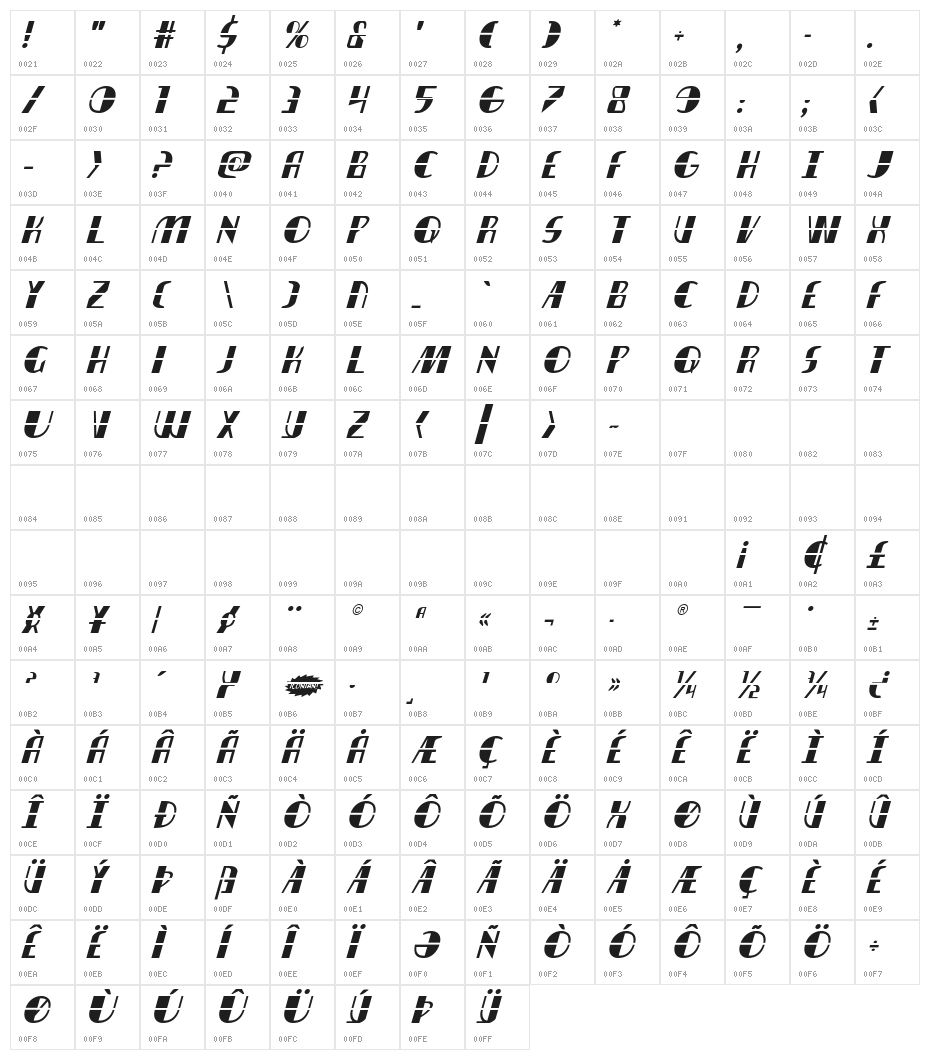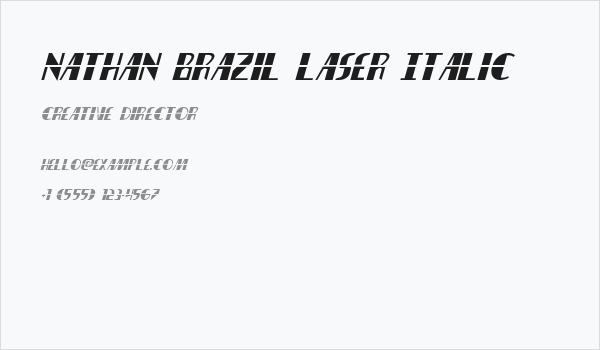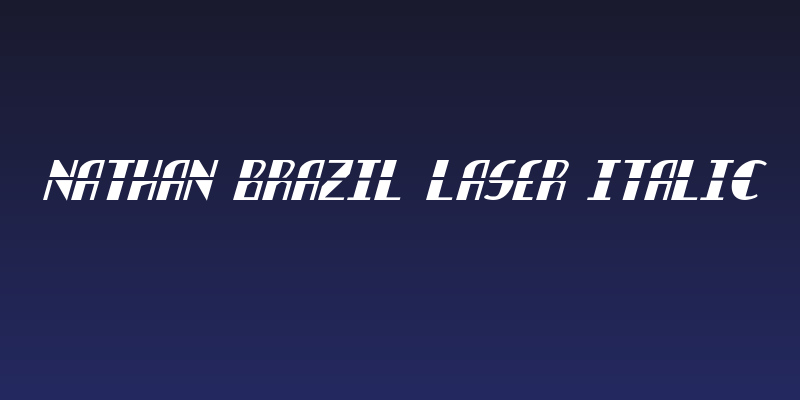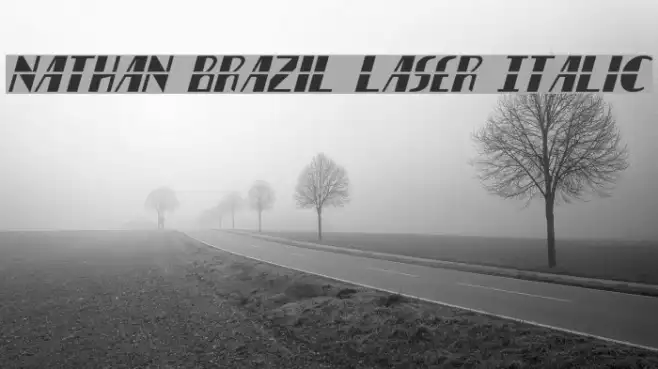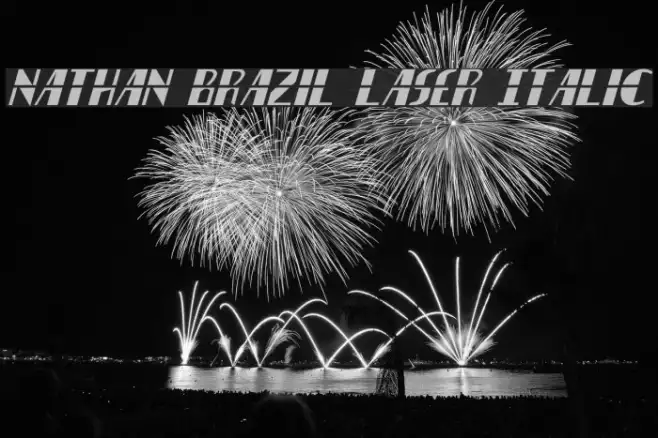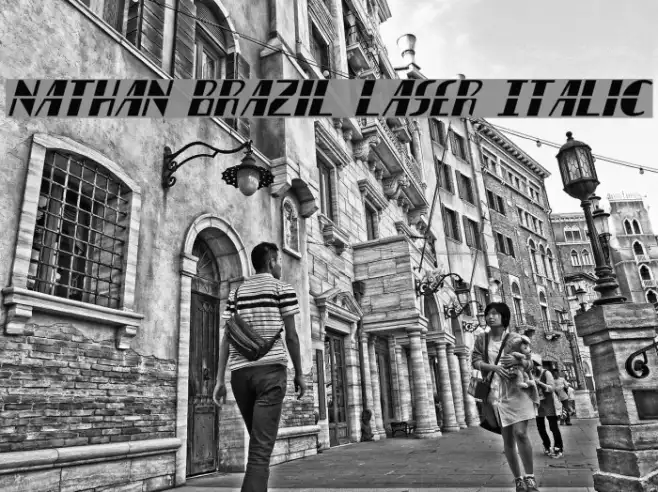
Nathan Brazil Laser Italic Font
Nathan Brazil Laser Italic Description
This font features a dynamic and futuristic design with a distinct italic slant, giving it a sense of motion and energy. The characters are bold and angular, with sharp edges and a unique cut-out style that creates a striking visual effect. The uppercase and lowercase letters maintain a consistent style, while the numerals and special characters complement the overall aesthetic. The font's modern and edgy appearance makes it suitable for projects that require a bold statement.
| Proposed Projects | Ideal for tech branding, sci-fi posters, video game titles, and dynamic advertising campaigns. |